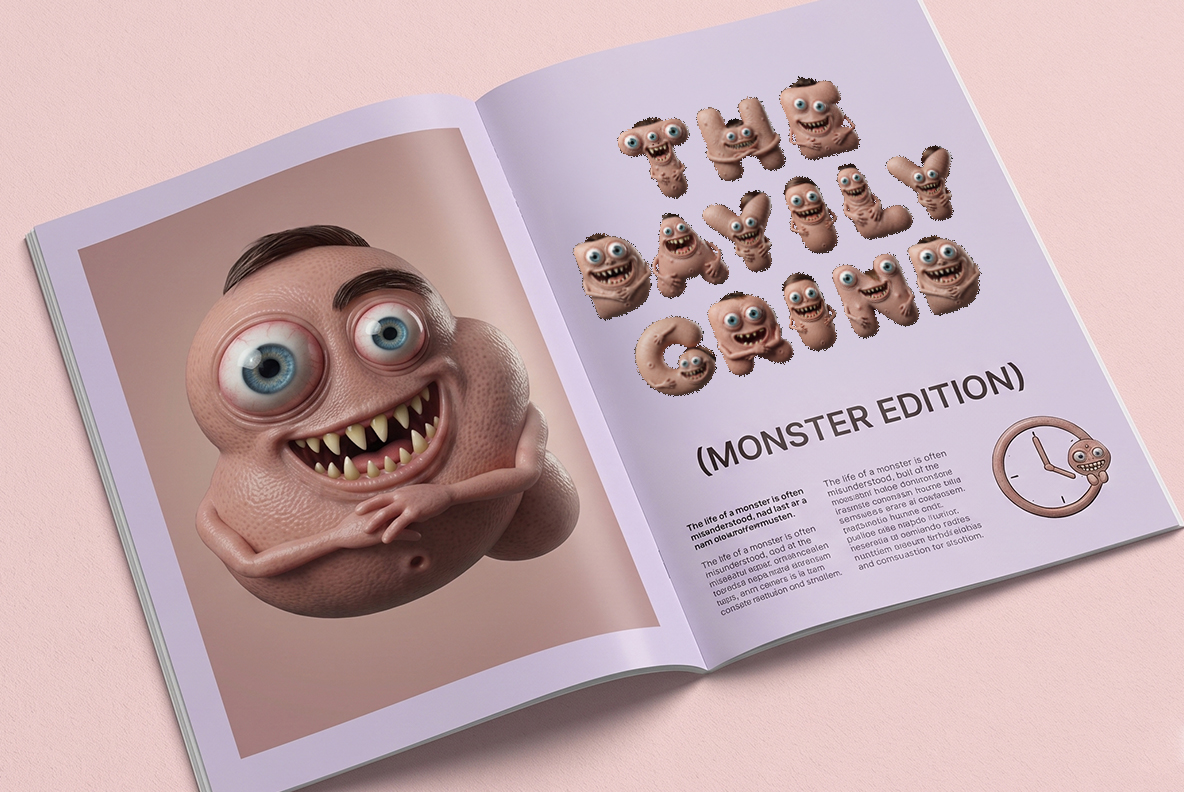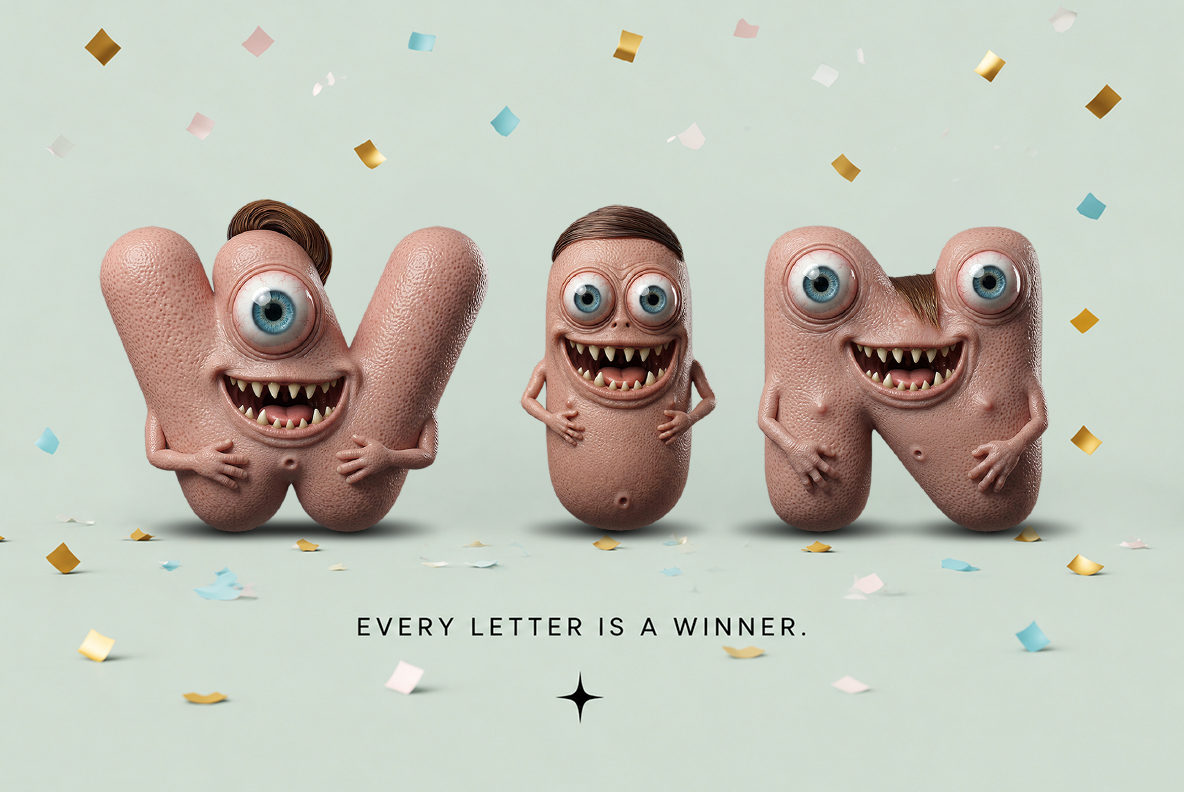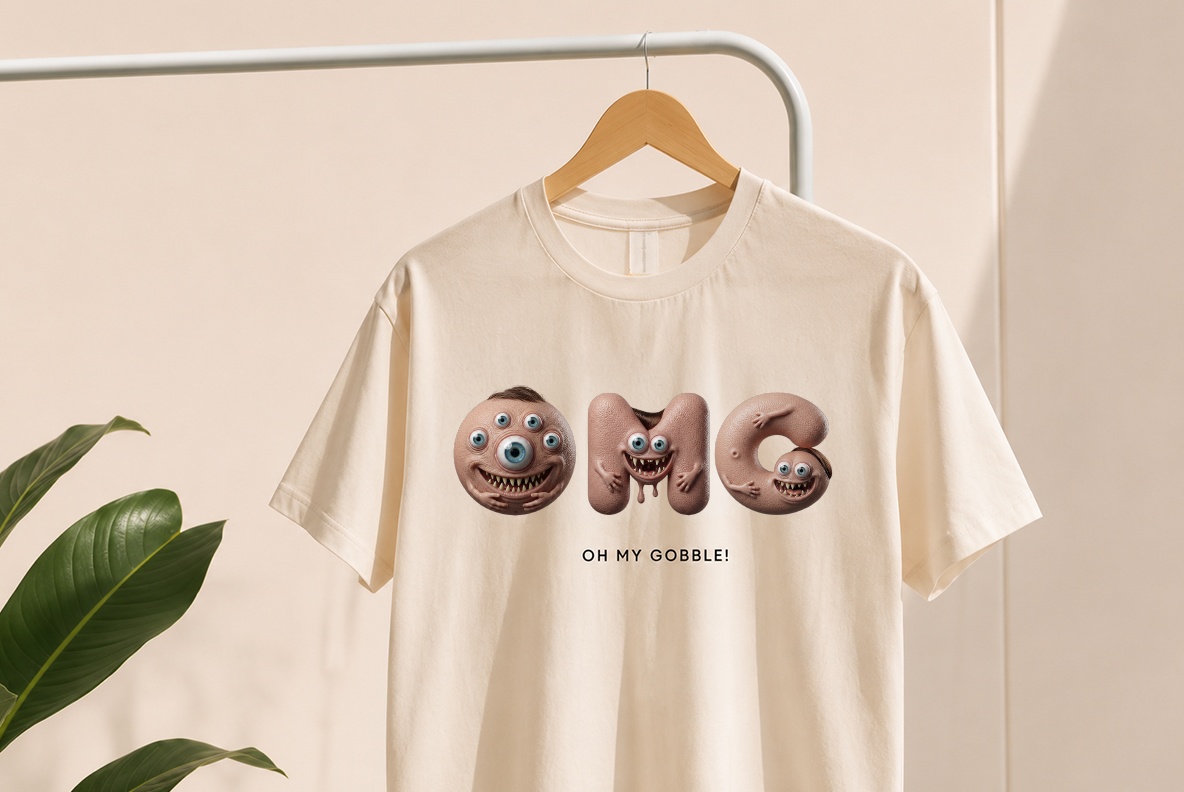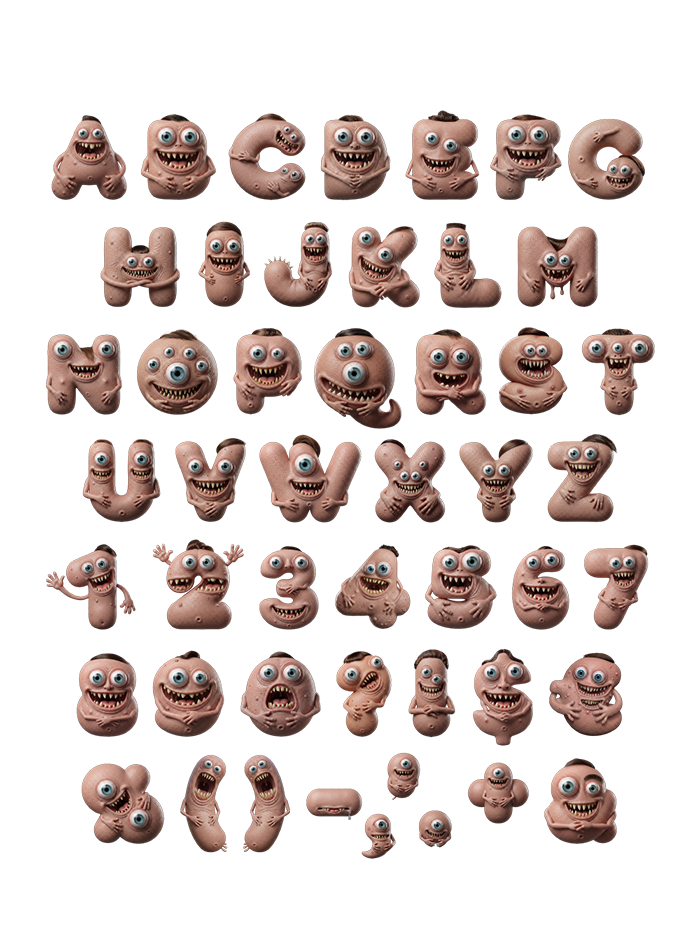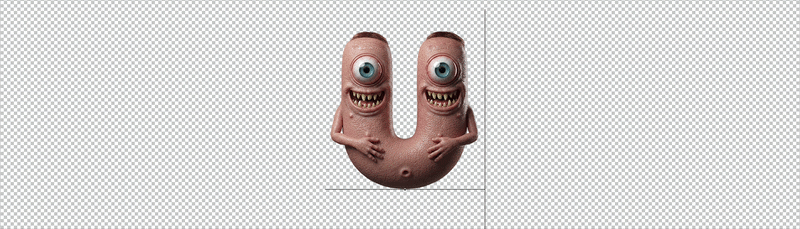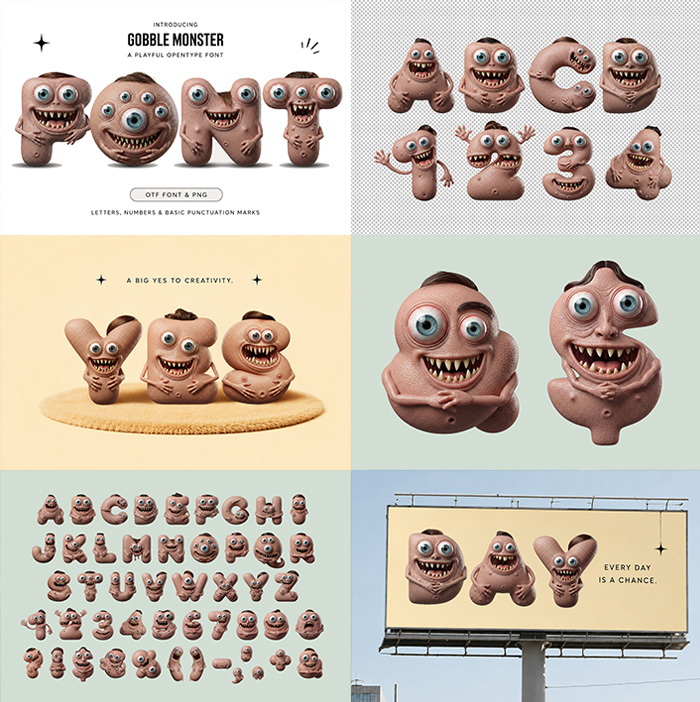
Gobble Monster Font. Bare Skin and Too Many Eyes
Gobble Monster Font builds every capital from a small bare-skinned creature: freckled pink hide, short arms folded over a belly, a combed tuft of hair, and anywhere from two to four glossy eyes. A grin full of tiny pointed teeth runs across the widest part of each letter. Uppercase, figures and punctuation all come with faces of their own.
Gobble Monster Font Is All Bare Skin and Eyeballs
No fur turns up anywhere in the Gobble Monster Font. Instead each letter is a small creature of bare skin, pinkish beige and faintly freckled. Little arms fold across a soft belly, while a tuft of dark hair sits combed over the crown. Then there are the eyes: one letter gets two, another gets four, and they never line up. Because every face differs, a typed word reads as a crowd rather than a set.
Teeth First, Letterform Second
Look past the face and a fat rounded capital is still doing the work. Strokes swell like sausages, so the counters shrink to narrow slots. Meanwhile the grin cuts across the widest part of each letter, lined with small pointed teeth. Naturally the set stays uppercase, with figures and basic punctuation in the same skin. Besides, no two letters repeat the same expression. Even the ampersand grew a mouth.
Where the Gobble Monster Font Actually Lands
Halloween is the obvious job, though the mockups push it further. YES sits on a doormat, WIN arrives under confetti, and OMG goes on a cream t-shirt. A yellow billboard carries DAY, while a magazine spread runs a monster edition of the daily grind. Because the creatures look friendly rather than gruesome, kids books and game menus suit it too. The nastier end of that shelf lives in our Monster Fonts collection.
Give Each Monster Elbow Room
Crowd these letters and the arms start to overlap. Therefore set the tracking wide and keep words short, four or five characters at most. At small sizes the eyes turn to dots, so headline scale suits the Gobble Monster Font best. You type it straight from an OTF, while the same creatures arrive as separate transparent PNGs in high resolution. For something scalier and angrier, the scaly green alphabet bites harder.